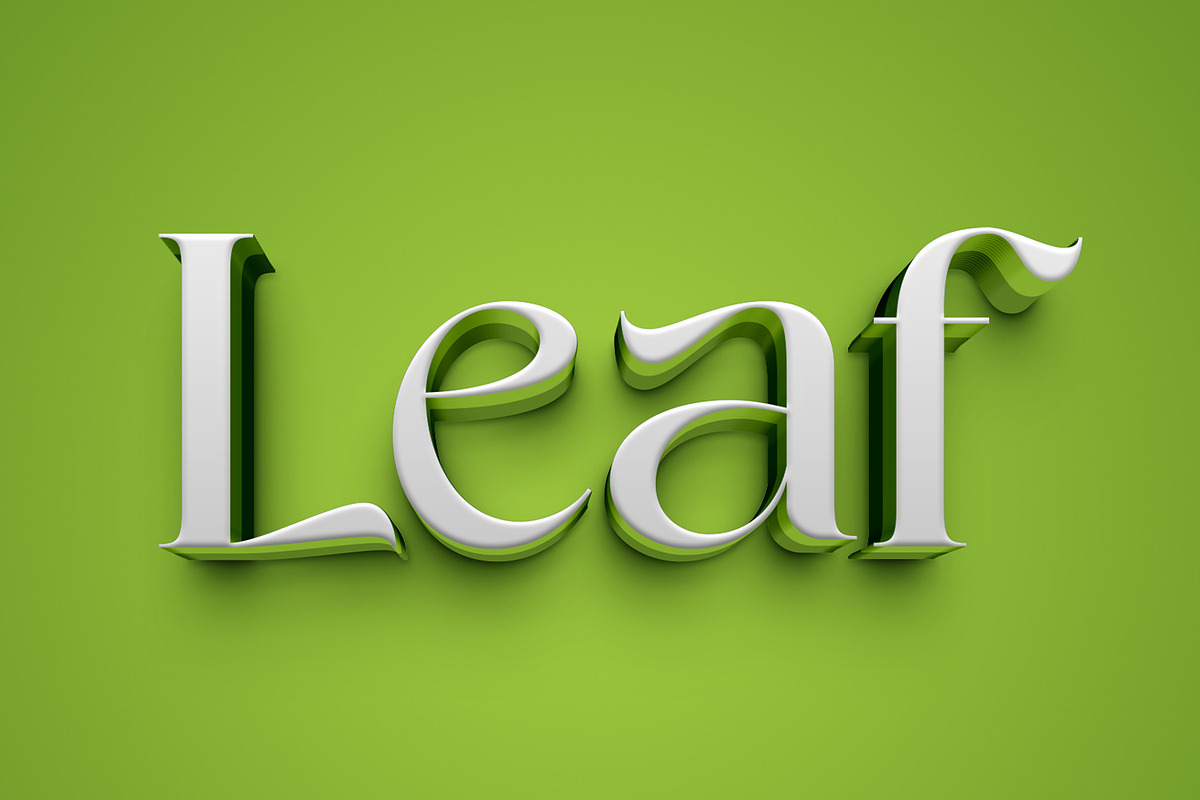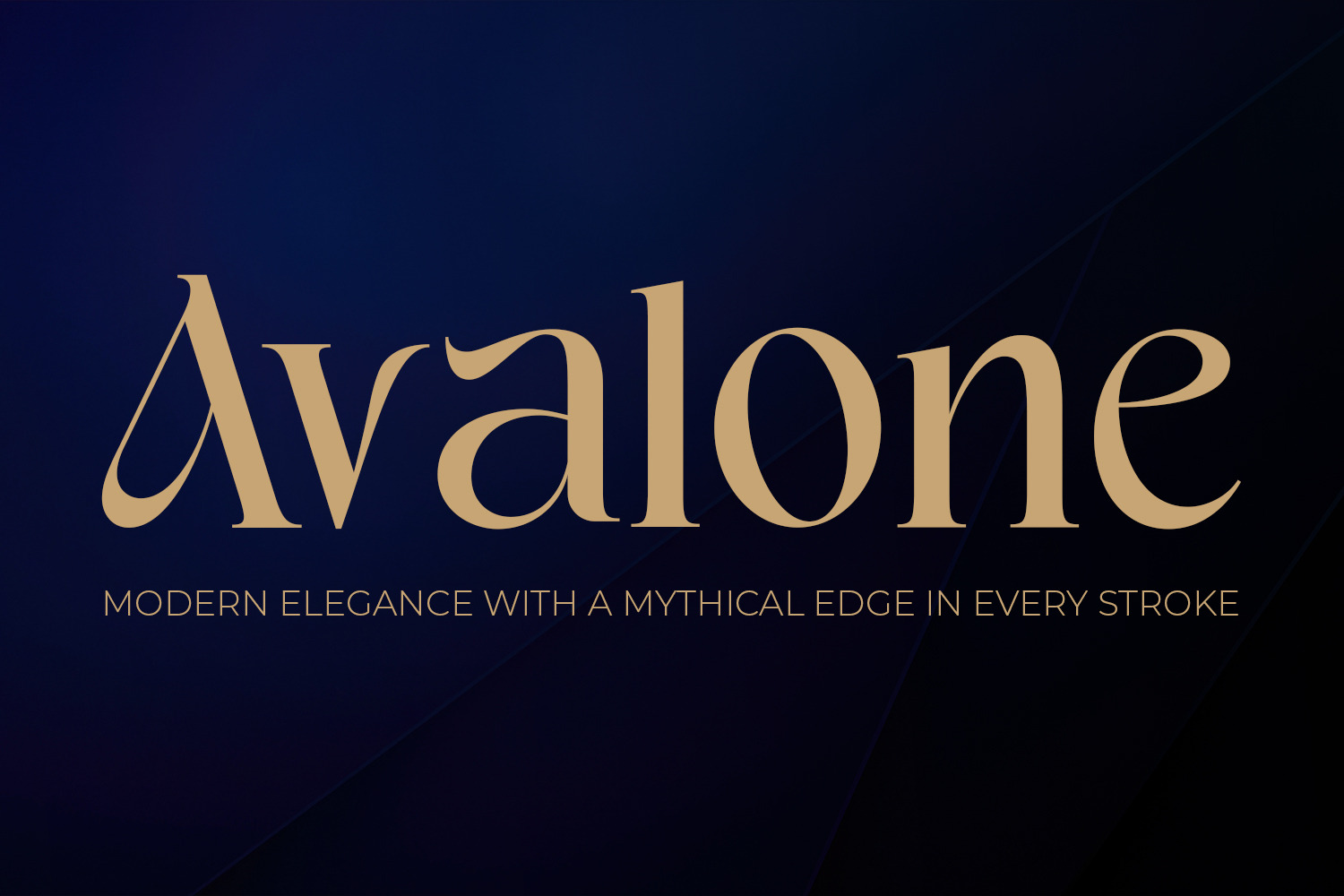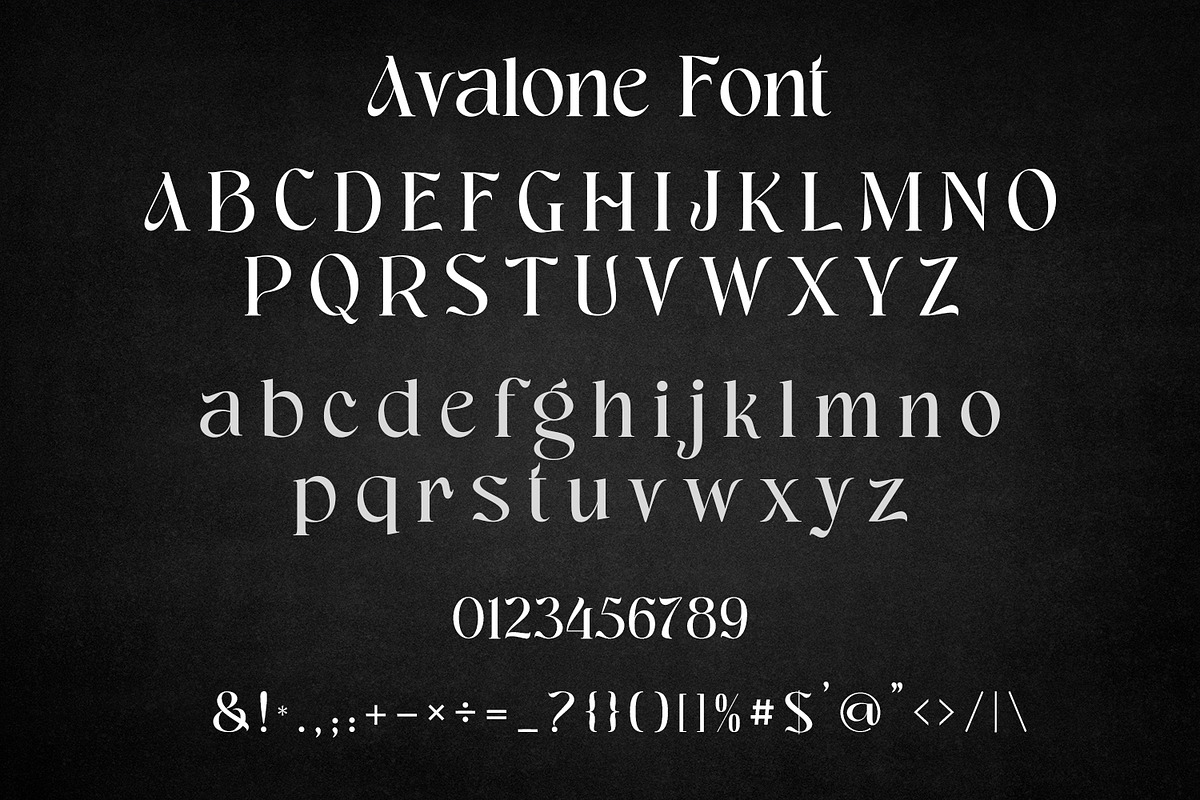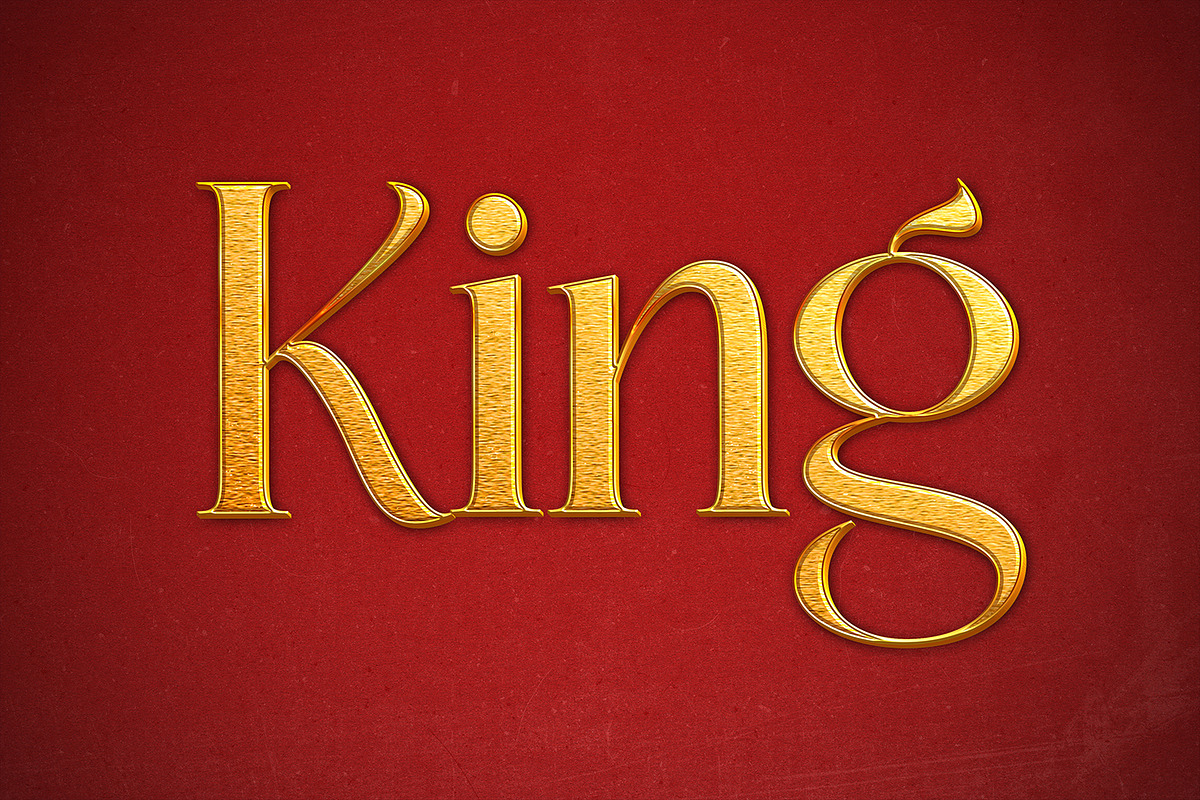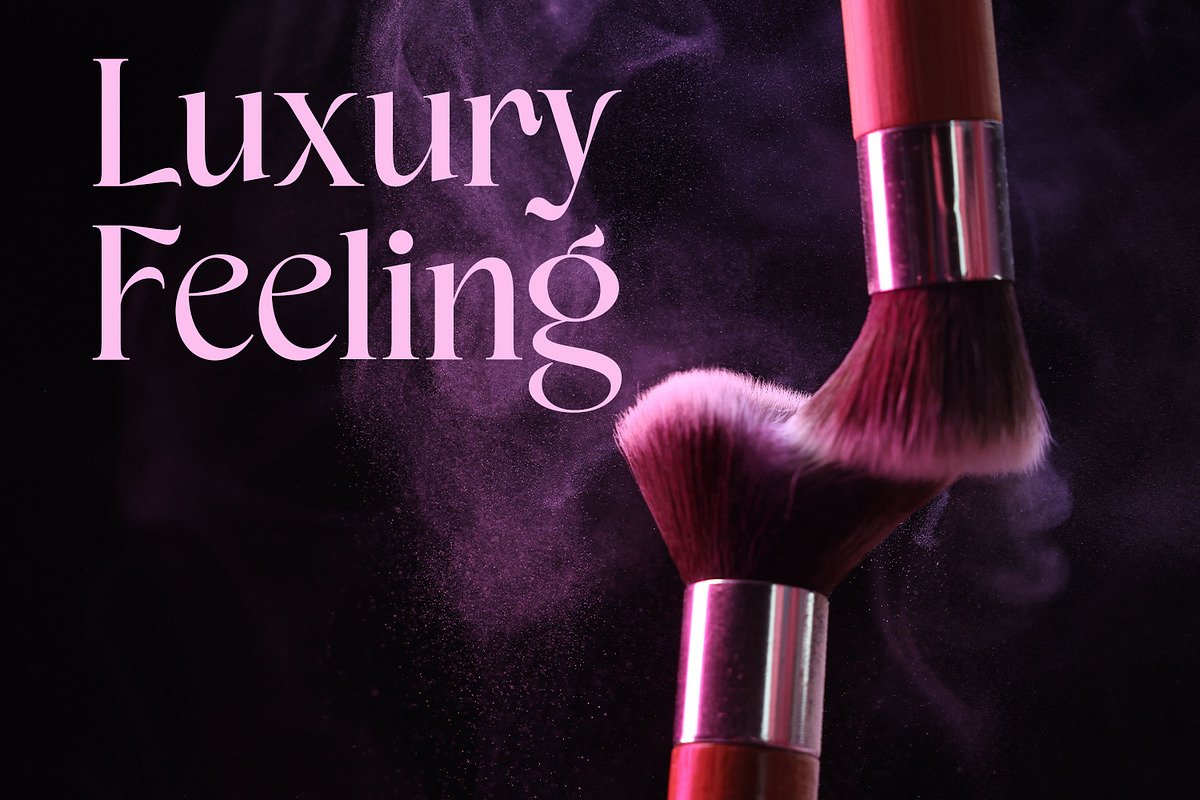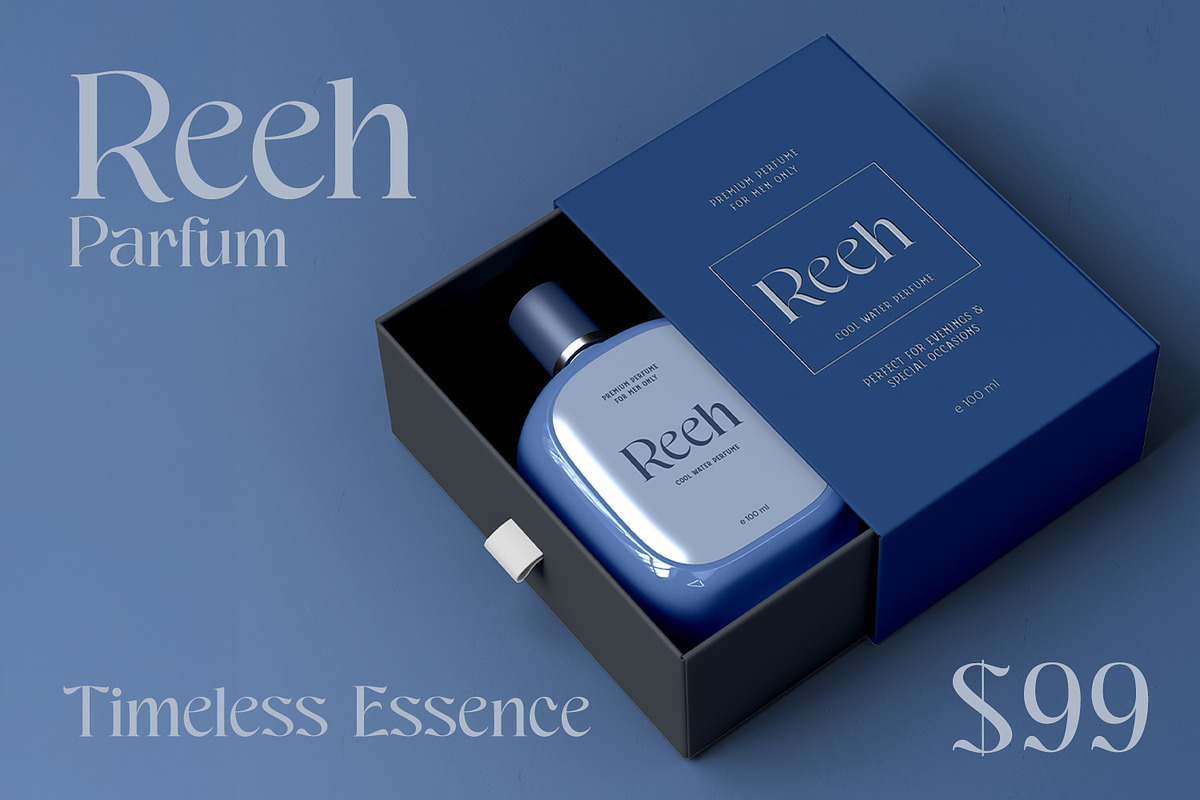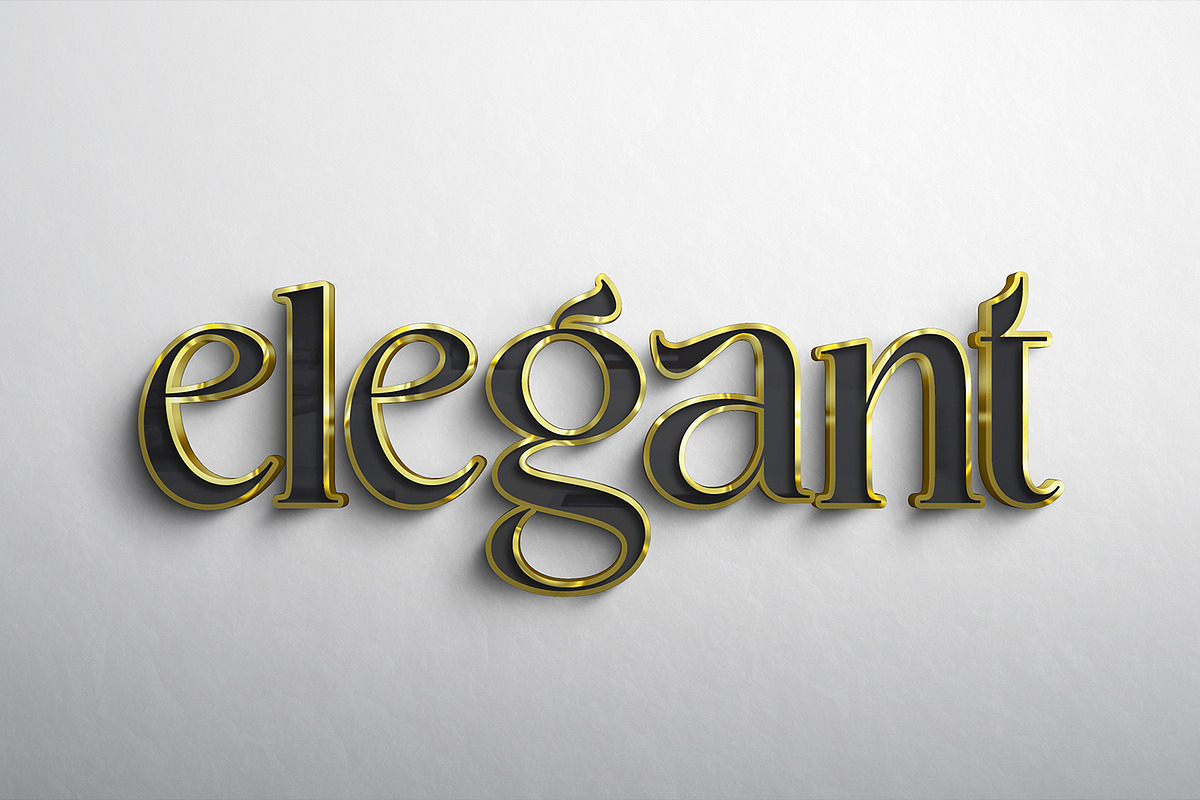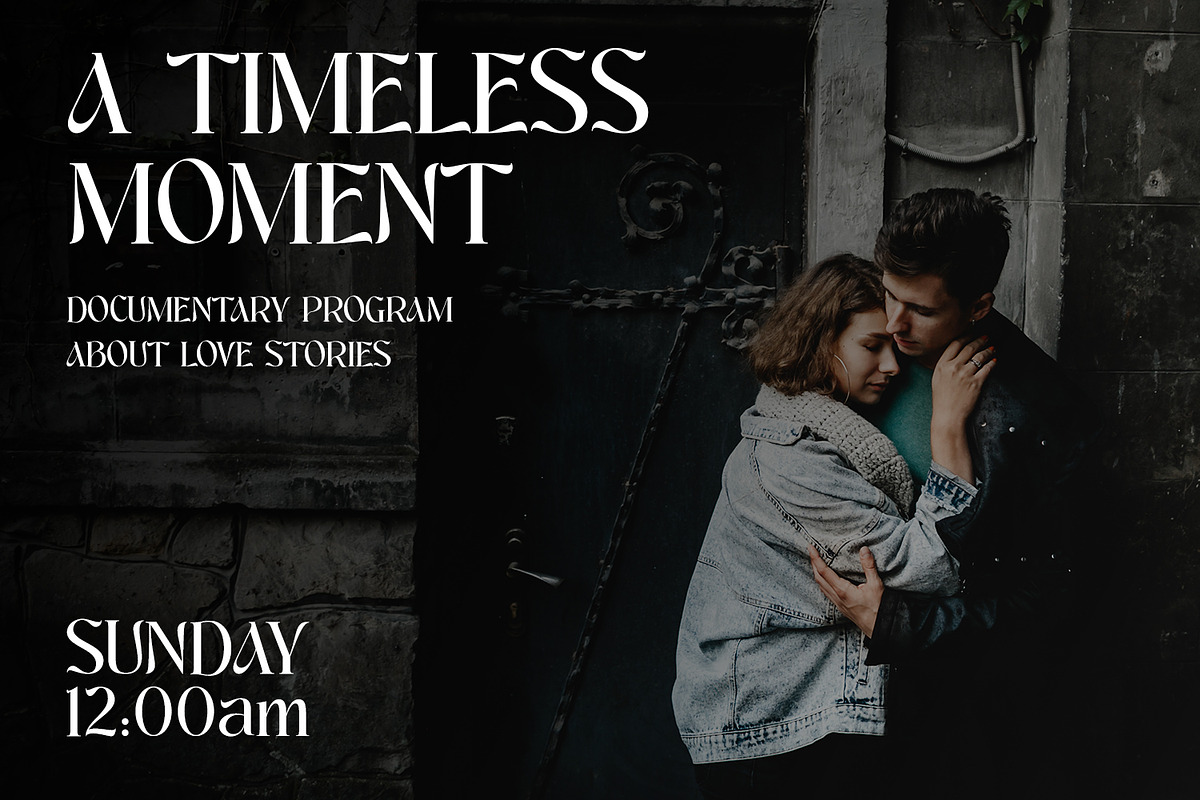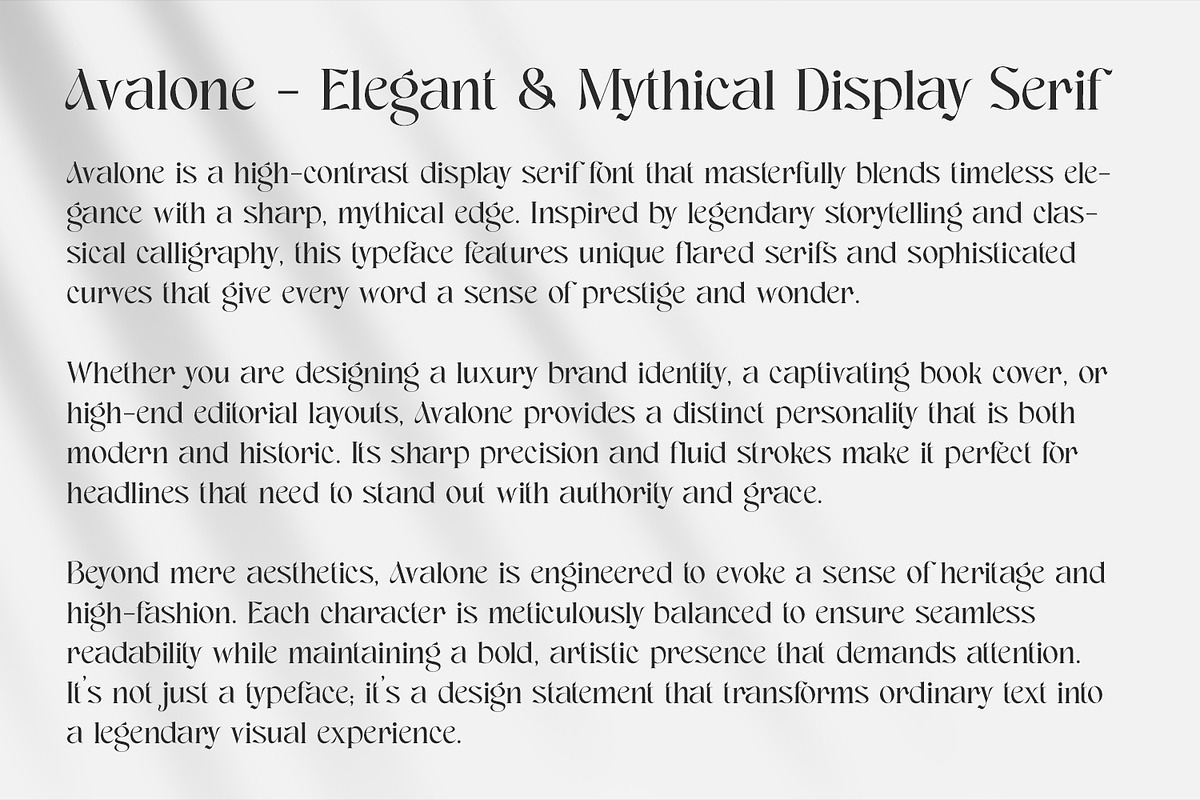
Avalone - Luxury Fantasy Typeface
Avalone is a high-contrast display serif font that masterfully blends timeless elegance with a sharp, mythical edge. Inspired by legendary storytelling and classical calligraphy, this typeface features unique flared serifs and sophisticated curves that give every word a sense of prestige and wonder.
Beyond mere aesthetics, Avalone is engineered to evoke a sense of heritage and premium craftsmanship. Each character is meticulously balanced to ensure seamless readability while maintaining a bold, artistic presence that demands attention. It’s not just a typeface; it’s a design statement that transforms ordinary text into a legendary visual experience.
Whether you are designing a luxury brand identity, a captivating book cover, or high-end editorial layouts, Avalone provides a distinct personality that is both modern and historic. Its sharp precision and fluid strokes make it perfect for headlines that need to stand out with authority and grace.